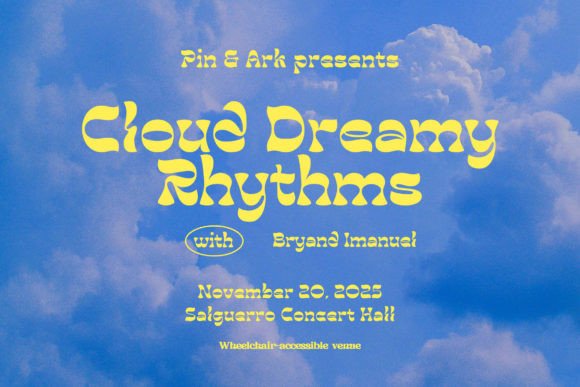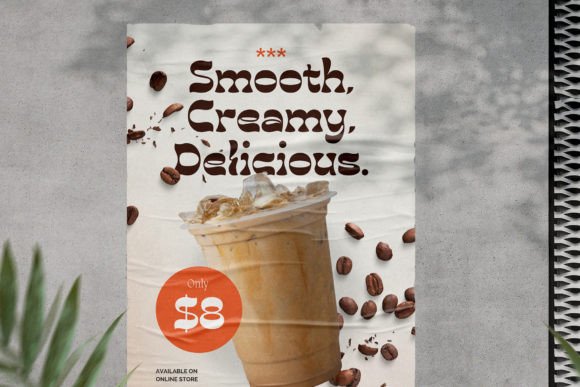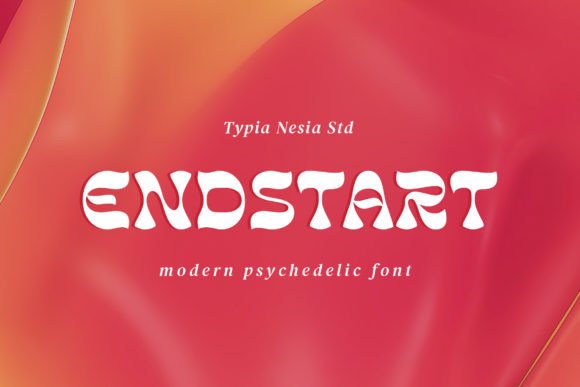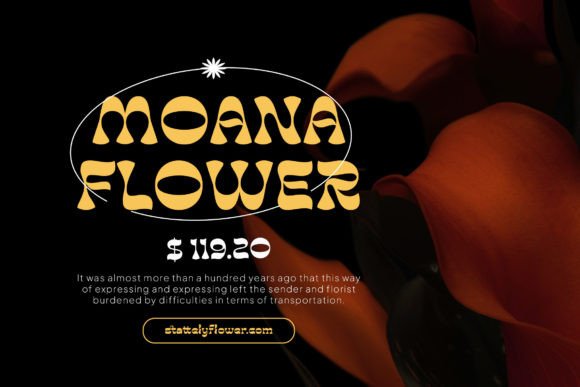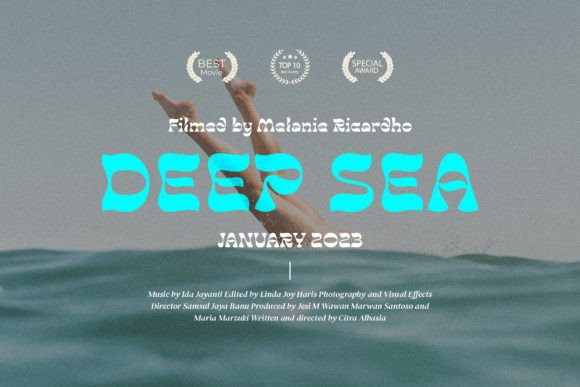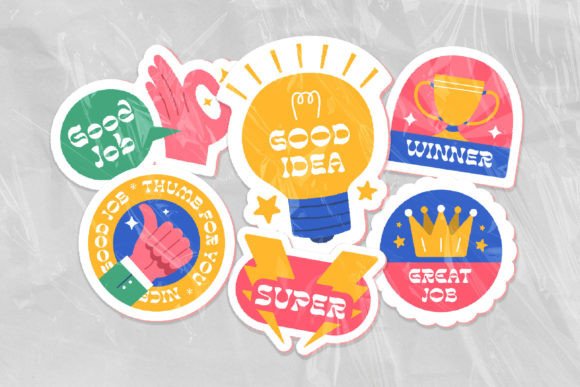
Introducing Endstart Font: The Ultimate Modern Retro Psychedelic Font
Are you a designer or crafter looking for a font that can elevate your designs to the next level? Look no further than Endstart Font, a modern retro psychedelic font that’s perfect for a wide range of design needs. From logos and branding to advertising, posters, and editorial design, Endstart Font is the ultimate versatile font that can add a touch of psychedelic flair to any project.
What is Endstart Font?
Endstart Font is a carefully crafted font that combines the best of modern and retro design elements. Its unique blend of bold lines, vibrant colors, and eclectic patterns makes it perfect for designers who want to create eye-catching and memorable designs. Whether you’re working on a logo, branding, or advertising campaign, Endstart Font is sure to make your designs stand out from the crowd.
What Makes Endstart Font So Versatile?
Endstart Font is designed to be versatile and adaptable, making it suitable for a wide range of design needs. Here are just a few examples of how you can use Endstart Font:
- Logo and Branding: Create a bold and memorable logo that showcases your brand’s personality with Endstart Font.
- Modern Advertising Design: Add a touch of psychedelic flair to your advertising campaigns with Endstart Font’s bold and eye-catching design.
- Vintage Retro Design: Create designs that evoke a sense of nostalgia and retro charm with Endstart Font’s vintage-inspired aesthetic.
- Psychedelic Design: Take your designs to the next level with Endstart Font’s bold and vibrant psychedelic patterns.
- Adventure/Mountain Hiking Brand: Create designs that evoke a sense of adventure and exploration with Endstart Font’s rugged and outdoorsy vibe.
- Music Poster: Create eye-catching music posters that showcase your event or artist’s personality with Endstart Font.
- Animation or Movie: Add a touch of psychedelic flair to your animation or movie projects with Endstart Font’s bold and vibrant design.
- Retro Summer Poster Quote: Create designs that evoke a sense of summer fun and nostalgia with Endstart Font’s vintage-inspired aesthetic.
- Book/Novel Cover Title: Create a bold and eye-catching book cover that showcases your novel’s personality with Endstart Font.
- Movie Animation: Add a touch of psychedelic flair to your movie animation projects with Endstart Font’s bold and vibrant design.
- Editorial Design: Create designs that showcase your editorial content with Endstart Font’s clean and modern aesthetic.
- Website/Blog: Add a touch of psychedelic flair to your website or blog with Endstart Font’s bold and eye-catching design.
- Card: Create designs that evoke a sense of nostalgia and retro charm with Endstart Font’s vintage-inspired aesthetic.
Why Choose Endstart Font?
So why choose Endstart Font for your design needs? Here are just a few reasons:
- Unique and Memorable: Endstart Font is designed to be unique and memorable, making it perfect for designers who want to create eye-catching and memorable designs.
- Versatile: Endstart Font is versatile and adaptable, making it suitable for a wide range of design needs.
- Easy to Use: Endstart Font is easy to use and can be easily integrated into your design workflow.
- High-Quality: Endstart Font is a high-quality font that’s designed to deliver exceptional results.
In conclusion, Endstart Font is the ultimate modern retro psychedelic font that’s perfect for designers and crafters who want to create eye-catching and memorable designs. With its unique blend of bold lines, vibrant colors, and eclectic patterns, Endstart Font is sure to elevate your designs to the next level. Whether you’re working on a logo, branding, or advertising campaign, Endstart Font is the perfect choice for any design need.